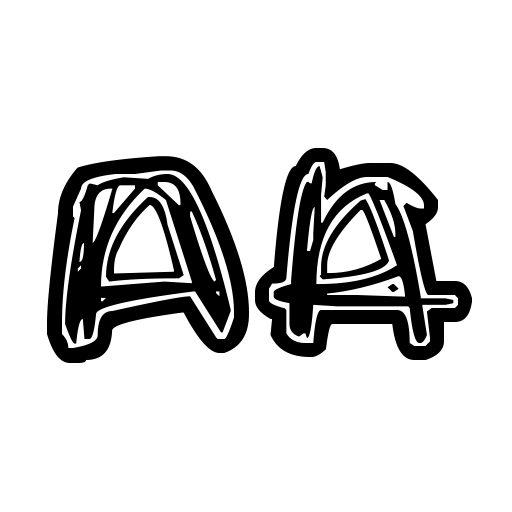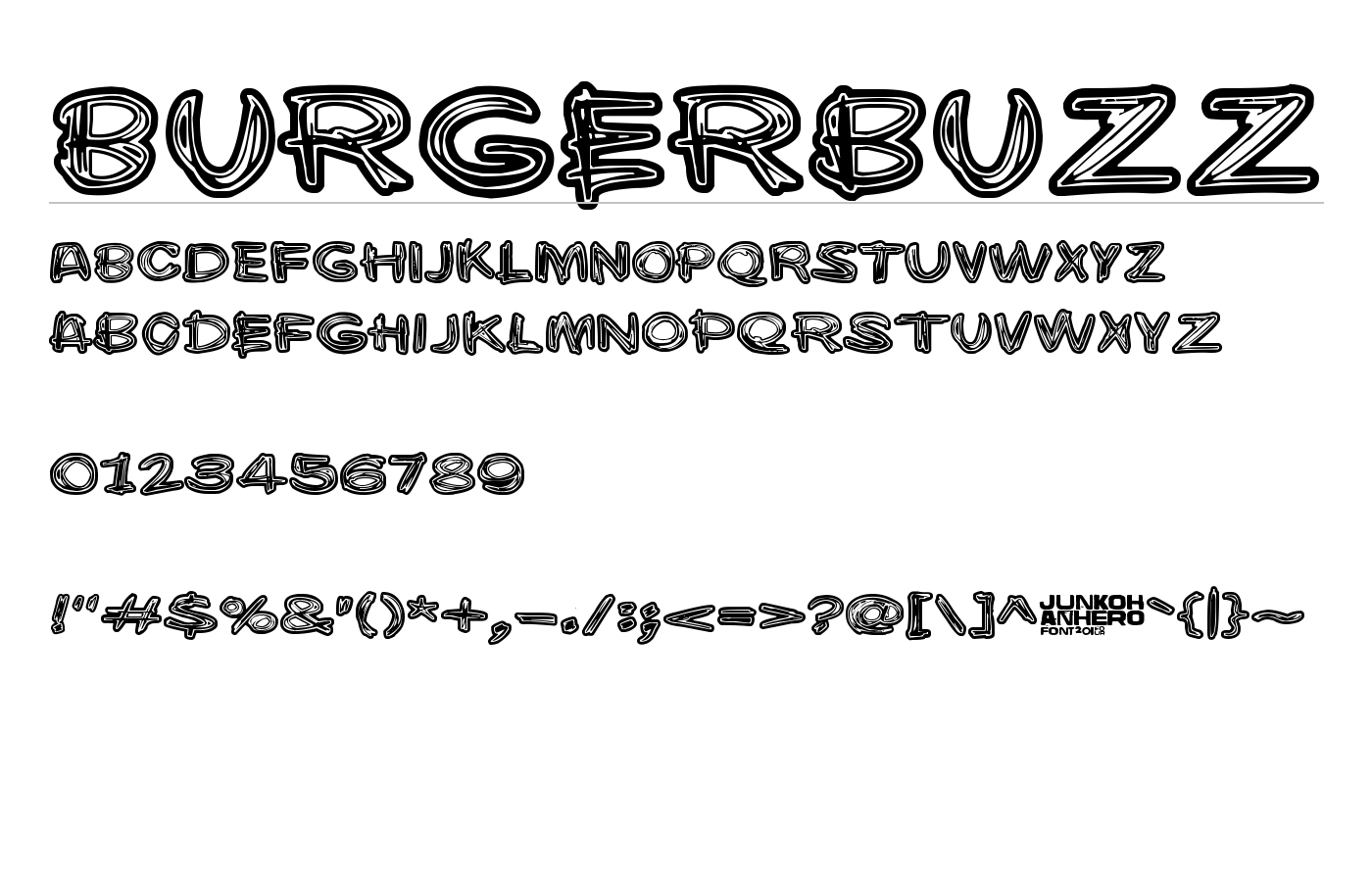
Burgerbuzz is a playful and bold display font with a hand-drawn, outlined style that adds energy and fun to any design. Its quirky, slightly irregular letterforms make it ideal for informal branding, posters, and packaging where a lively, youthful vibe is desired. This font works well for eye-catching headlines and creative projects that want to convey a sense of personality and approachability.
Burgerbuzz Font
About Burgerbuzz Font